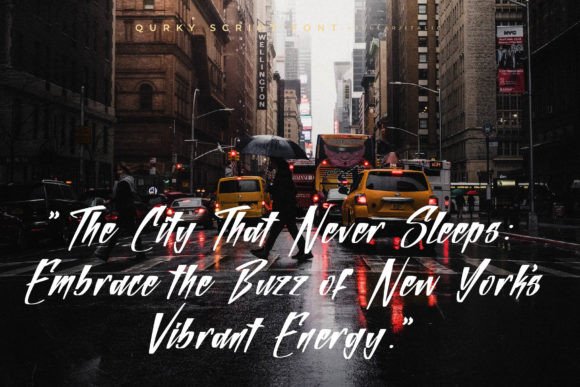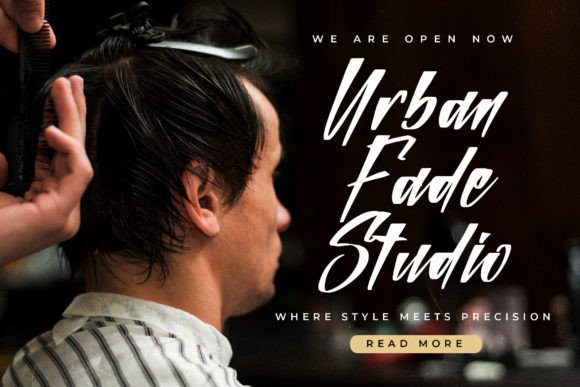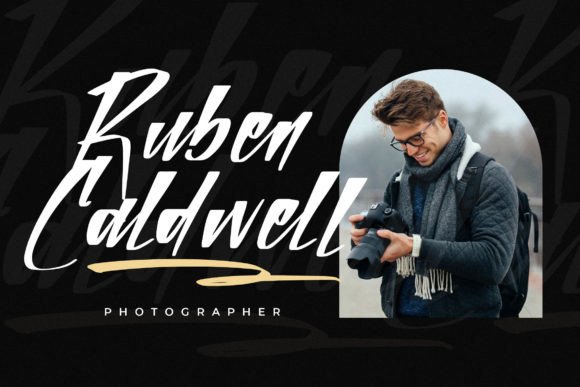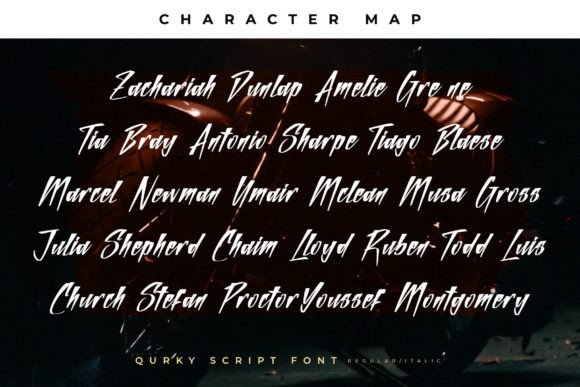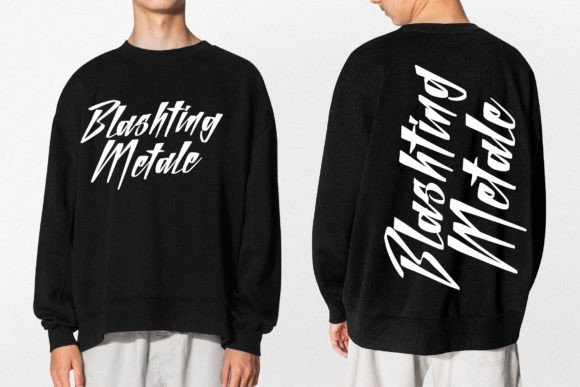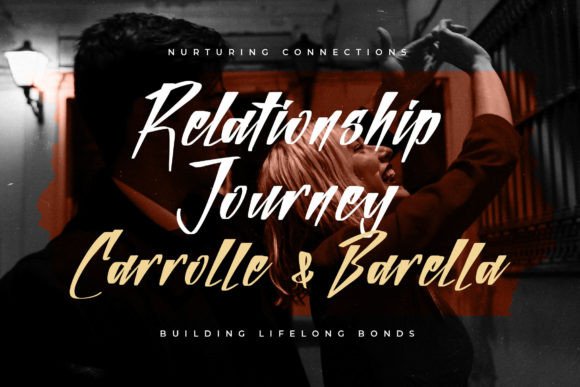
Introducing Blashting Metale: The Quirky Script Font for Creative Projects
Are you a designer or crafter looking for a unique and eye-catching font to elevate your projects? Look no further than Blashting Metale, a quirky script font from Glorytype Studio. This beautiful font is perfect for adding a touch of personality to any project, from logos and branding to homeware designs, product packaging, and more.
What is Blashting Metale?
Blashting Metale is a script font that boasts a quirky and charming personality. Its unique lettering style is sure to capture the attention of your audience and leave a lasting impression. The font is highly versatile and can be used for a wide range of projects, including:
- Logos and branding projects
- Homeware designs
- Product packaging
- Mugs
- Quotes and posters
- Shopping bags
- T-shirts
- Book covers
- Name cards
- Invitation cards
- Greeting cards
- Labels
- Photography and watermark
- Special events
Why Choose Blashting Metale?
So, what sets Blashting Metale apart from other fonts? Here are just a few reasons why designers and crafters love this quirky script font:
- Unique and eye-catching: Blashting Metale’s quirky lettering style is sure to grab attention and add a touch of personality to your projects.
- Highly versatile: This font can be used for a wide range of projects, from logos and branding to homeware designs and product packaging.
- Easy to read: Despite its quirky style, Blashting Metale is highly legible and easy to read, making it perfect for use in quotes, posters, and other text-based projects.
- Customizable: Blashting Metale can be easily customized to fit your project’s specific needs, allowing you to add your own personal touch.
How to Use Blashting Metale
- Pair with a bold font: Blashting Metale pairs perfectly with bold fonts, creating a striking contrast that’s sure to grab attention.
- Use in headlines: This font is perfect for use in headlines, adding a touch of personality and whimsy to your text.
- Add a personal touch: Blashting Metale can be used to add a personal touch to your projects, making them stand out from the crowd.